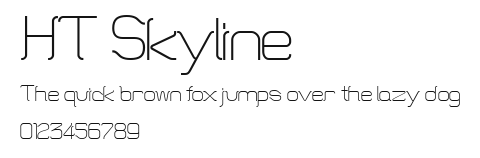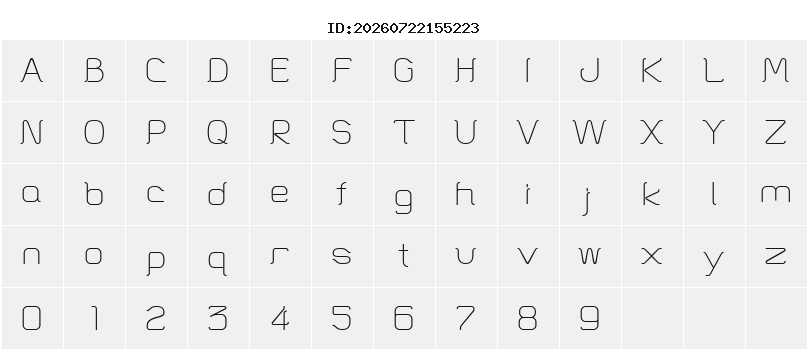
HT Skyline Preview
• Font Name: HT Skyline
• Font ID: LamHoTak: HT Skyline: 2012
• Full Font Name: HT Skyline
• Designer: Lam Ho Tak
• Manufacturer: Lam Ho Tak
About HT Skyline.ttf
HT Skyline.ttf is a modern, elegant sans-serif font designed for ultimate readability and visual harmony. Perfect for branding, headlines, web design, and print materials.